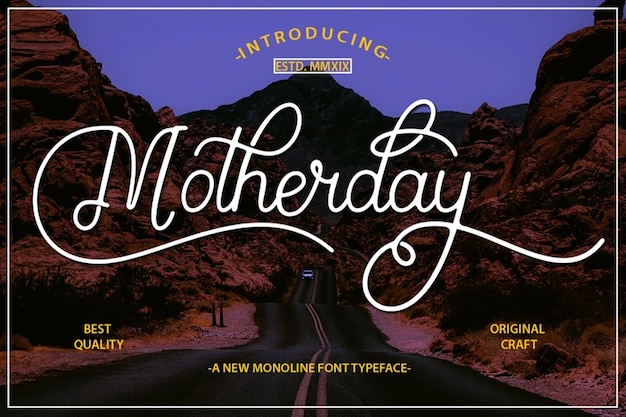
Motherday
Motherday Font
Motherday font is calligraphic warmth with a rustic embrace—like handwritten love notes on aged parchment. Its letters carry a heartfelt touch, as if penned by a caring hand. With a rustic charm, it's perfect for adding a cozy, homemade feel to your designs. It's the font that echoes the affectionate essence of a handwritten letter, celebrating love and nostalgia in its rustic lettering.